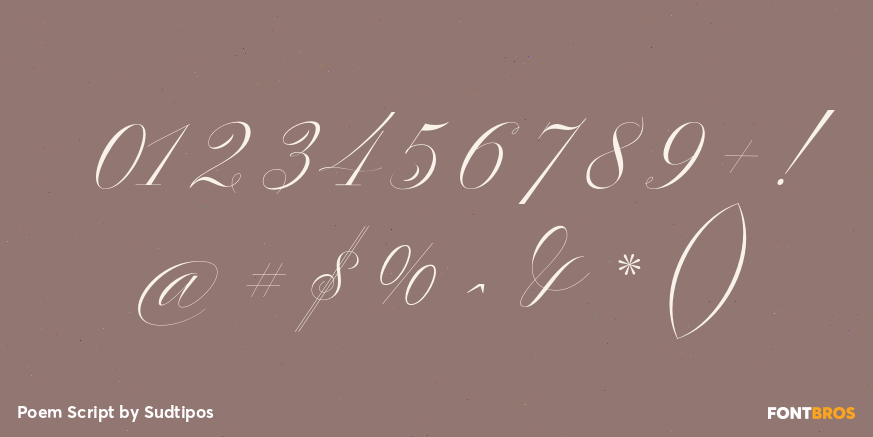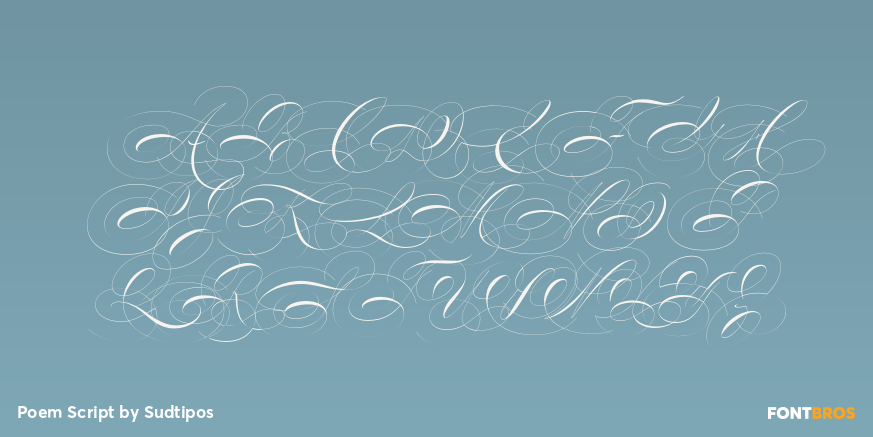
Poem Script
Buy NowPoem Script is a mixed collection of interpretations conjuring a late nineteenth century American pen script style.
Though not an actual Italian letterform, this style was called ?Italian Alphabet? stemming from an old penman's term for an alphabet where the stress or shades are opposite their normal placement. The American variant followed from the late eighteenth century British hand also confusingly called ?Italian Hand,? which itself evolved from some seventeenth century French batarde scripts.
It showcases the phenomenal control and mastery of hand skills required to create such ornamental and lively letters centuries ago. Producing the shaded strokes in reversed positions such as this required holding the pen in a position horizontal to the baseline, or the letterforms would have to be written backwards or by rotating the paper at peculiar and extreme angles to achieve the effect.
Exotic, elaborate and very attractive, Poem Script contains plenty of variations on each letter and comes with hundreds of calligraphic ornaments.
Poem Script received a certificate of Excellence at the Type Directors Club NY and was selected at the Bienal Tipos Latinos 2012.